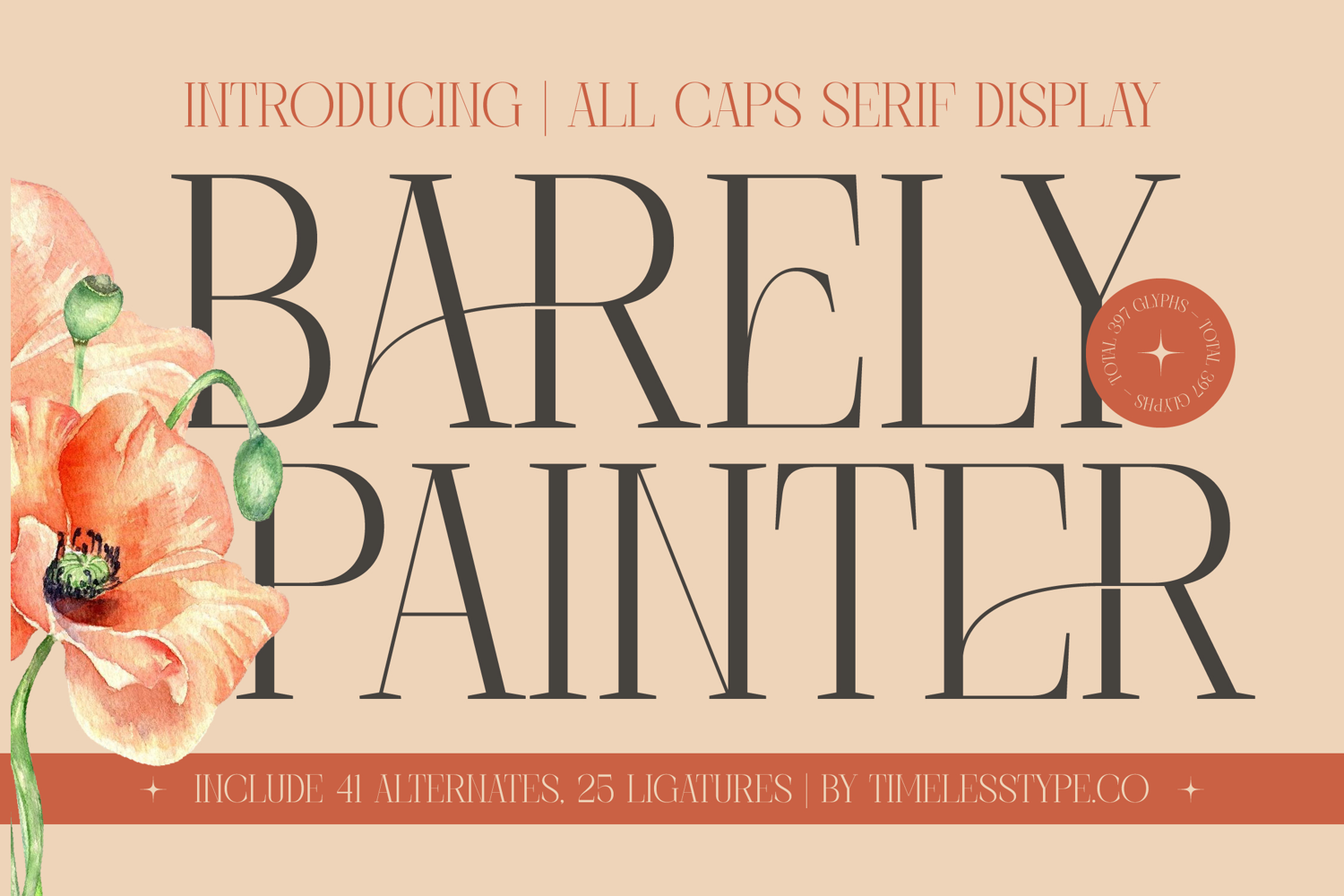
Barely Painter - All Caps Serif Font
Barely Painter Italic
Barely Painter
Barely Painter - All Caps Serif Font
Unleash unparalleled elegance with Font Barely Painter - All Caps Serif Font Serif Display. This exquisite high-contrast display font marries timeless sophistication with a contemporary edge, making it an instant classic. Its striking serifs and delicate hairlines create a visually captivating presence, perfect for conveying a sense of luxury and refinement in any design that demands attention and a premium aesthetic.
Ignite your creative vision with its exceptional typographic toolkit. Boasting 41 alternates and 25 ligatures among its 397 total glyphs, Font Barely Painter - All Caps Serif Font Serif Display offers unparalleled design flexibility. Craft truly unique compositions and add a bespoke touch to your projects, ensuring every headline and logotype stands out with a distinctive flair that captivates and persuades.
Elevate your brand's narrative with a font designed for maximum impact. Font Barely Painter - All Caps Serif Font Serif Display is perfectly suited for luxury branding, high-end packaging, fashion magazines, and sophisticated editorial design. With its extensive multilingual support, Font Barely Painter - All Caps Serif Font Serif Display adapts seamlessly across global markets, making it incredibly versatile for international projects and creating unforgettable impressions.
Make a definitive statement that resonates with discerning audiences. Opt for Font Barely Painter - All Caps Serif Font Serif Display to infuse your work with unmatched elegance and professional gravitas. This premium display serif is not just a font; it's an investment in elevating your design projects to a level of profound visual artistry and lasting appeal, ensuring your message is delivered with undeniable class.